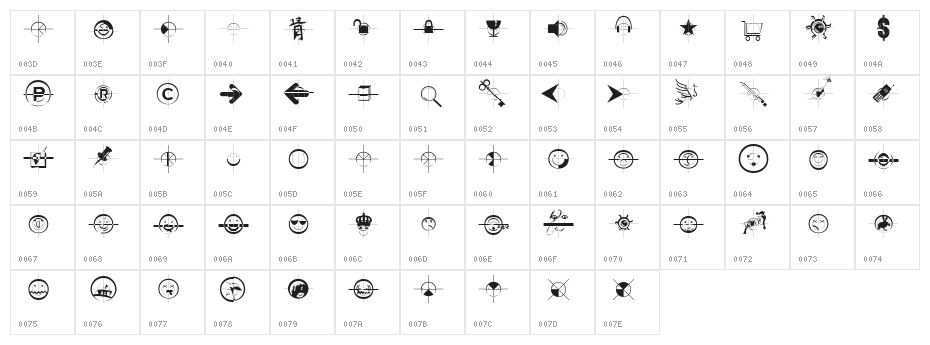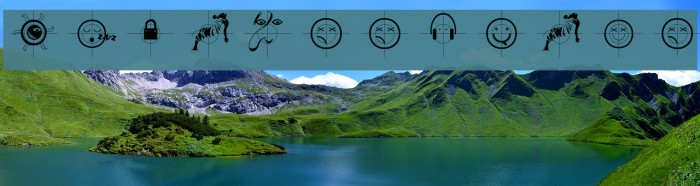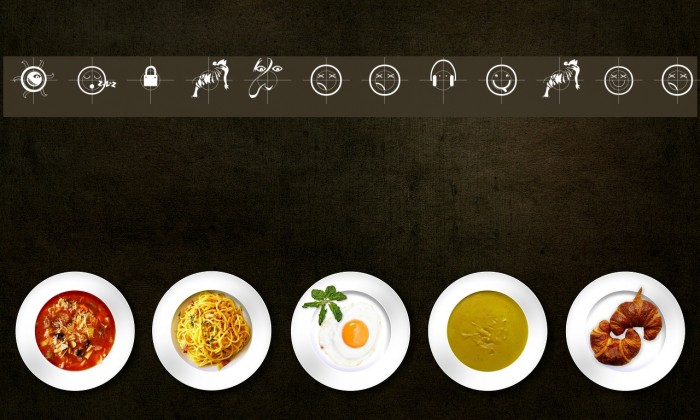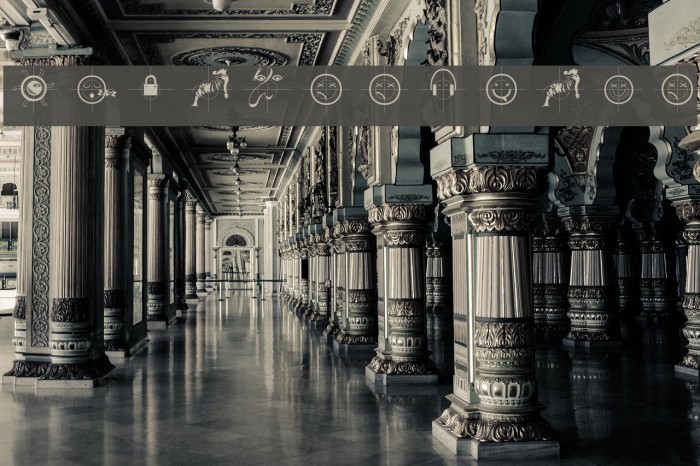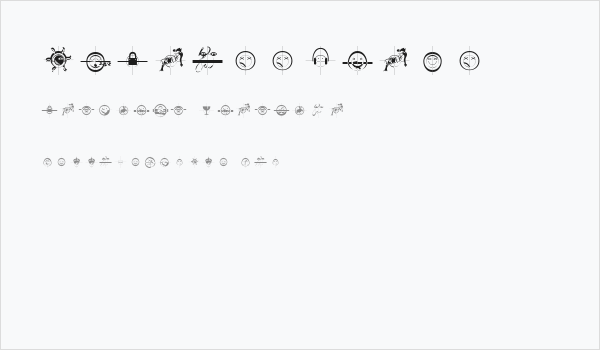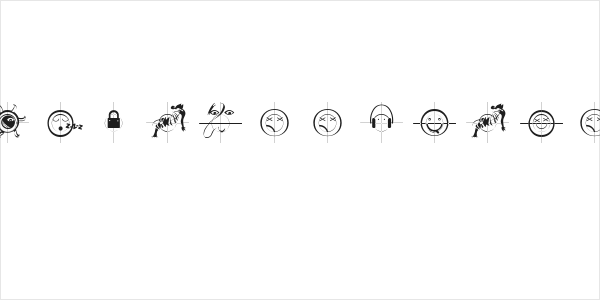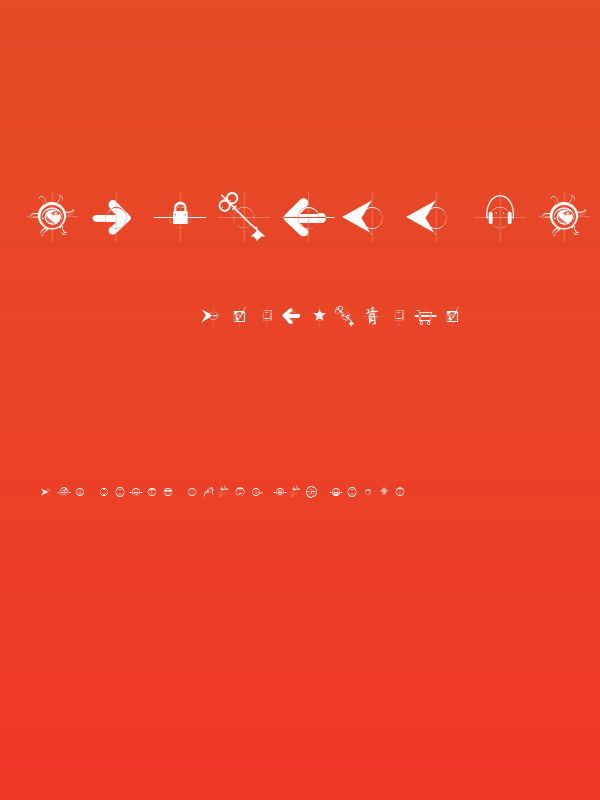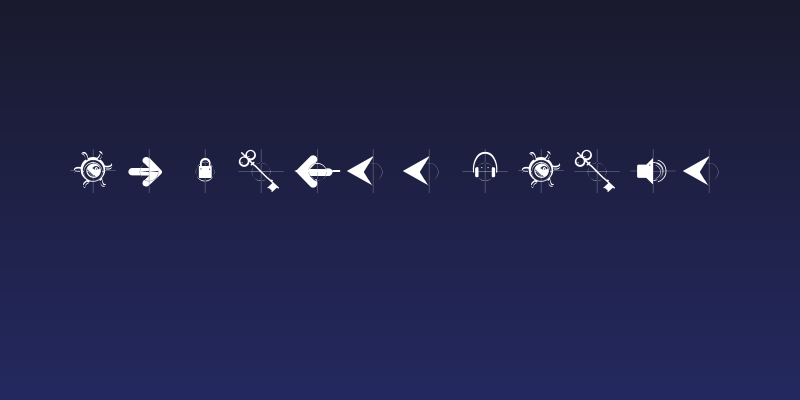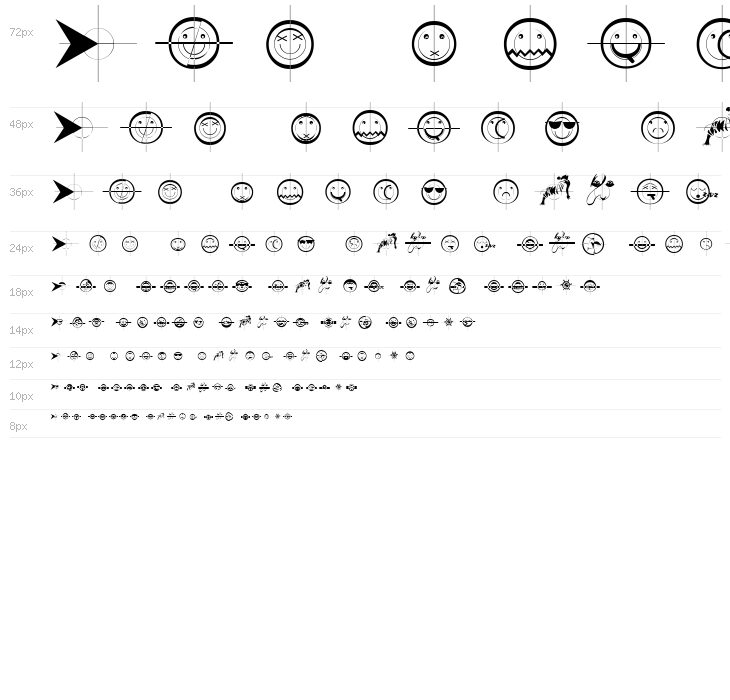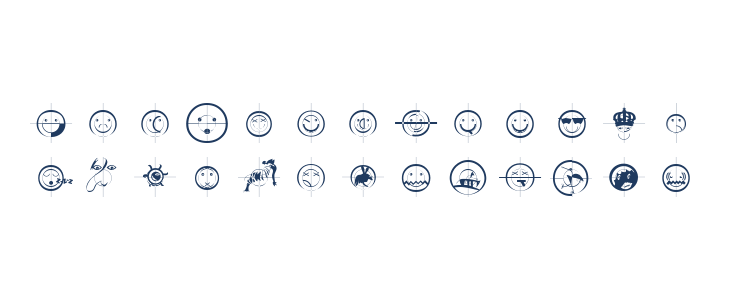
InCrossFires Font
InCrossFires Description
A decorative dingbat font featuring a variety of icons and symbols, each centered within a crosshair or target motif. The icons include objects, animals, faces, and symbols, all rendered in a consistent black line art style.
| Use Case | Icons, visual accents, thematic dividers, playful branding. |
| Proposed Projects | Infographics, posters, game interfaces, educational materials, themed event graphics. |